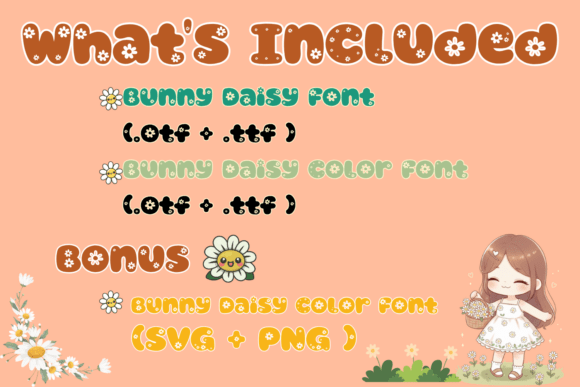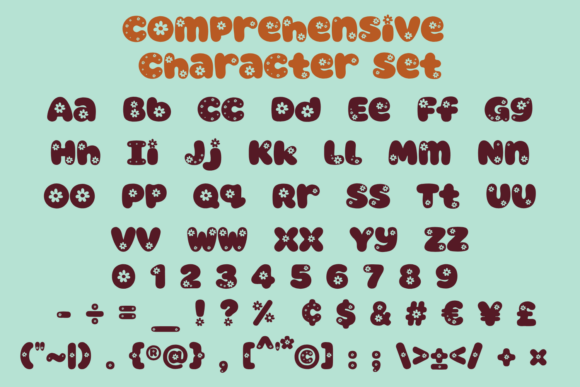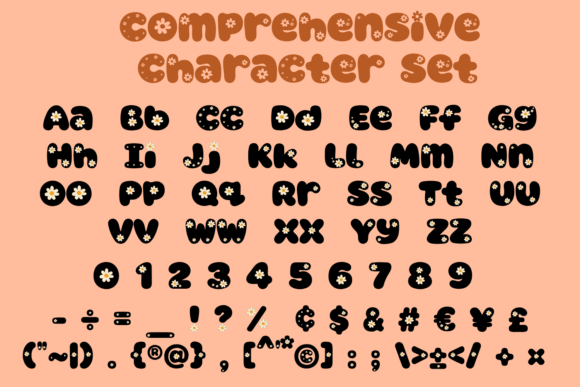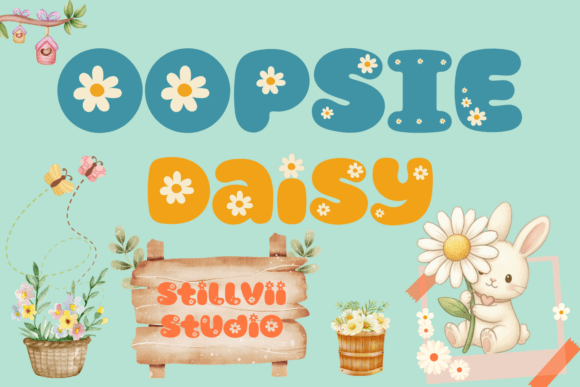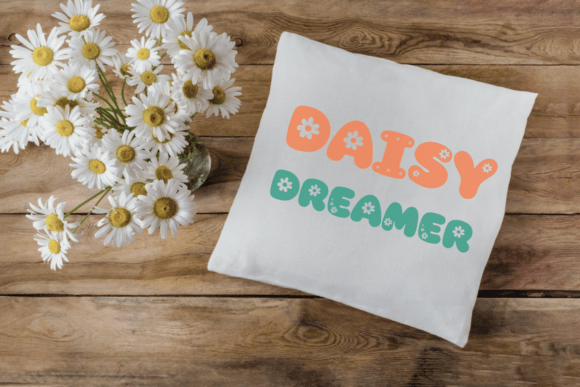
Get Ready to Bloom with the Bunny Daisy Duo Font
As a designer, there’s nothing quite like the thrill of creating something new and exciting. Maybe it’s a burst of inspiration from a beautiful spring morning, or the joy of working with a client who’s eager to bring their vision to life. Whatever the spark, it’s moments like these that make our jobs truly special.
That’s why we’re excited to introduce you to the Bunny Daisy Duo Font, a vibrant display font collection that’s perfect for capturing the essence of spring. With its ultra-bold, bubbly letterforms and delicate hand-drawn daisies, this font is an instant favorite for seasonal branding and Easter-themed crafts. Whether you’re designing nursery wall art, spring festival posters, or boutique floral packaging, the Bunny Daisy Duo Font brings a fresh, joyful energy to your creative projects.
Bunny Daisy Duo Font Key Features
- Font Family: A unique and playful combination of ‘Bunny’ and ‘Daisy’ fonts, ideal for creating a whimsical and childlike atmosphere.
- Language Support: Supports a wide range of languages, including English, Spanish, French, German, Italian, and many more, making it a versatile choice for multilingual designs.
- Unique Characteristics: The Bunny Daisy Duo Font features a distinctive blend of hand-drawn and digital elements, creating a charming and playful aesthetic.
Bunny Daisy Duo Font Review
I recently had the chance to work with the Bunny Daisy Duo Font and I must say, it’s a cute and playful addition to any design project. Here’s my honest review.
- ✨ The font is incredibly versatile – it works well for both digital and print designs.
- ✨ The Bunny and Daisy characters are adorable and can be used in a variety of contexts, from social media graphics to children’s books.
- ✨ The font is highly customizable, allowing you to adjust the size, color, and style to suit your design needs.
- ⚠️ The font may be too cute for more serious or professional designs, so be sure to use it sparingly.
- ⚠️ Some users may find the font a bit too whimsical, which could be a turn-off for those who prefer more straightforward designs.
- ⚠️ The font may not be suitable for very small or very large text sizes, as the characters can become distorted.
Overall, I think the Bunny Daisy Duo Font is a great addition to any designer’s toolkit. While it may have some limitations, its versatility and customizability make it a great choice for a variety of design projects.
Tips for Getting the Most Out of the Bunny Daisy Duo Font
For best results, use the Bunny Daisy Duo Font in designs that feature a playful and whimsical theme. This font pairs well with bright and pastel colors, making it perfect for children’s party invitations, nursery decor, and other fun projects.
Experiment with different font sizes and styles to create a unique and eye-catching design.
The Bunny Daisy Duo Font is ideal for:
- Nursery decor and signage